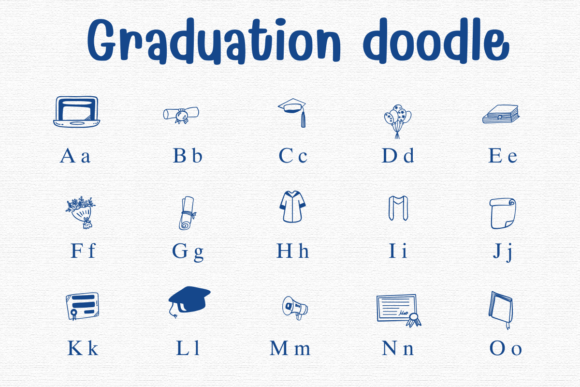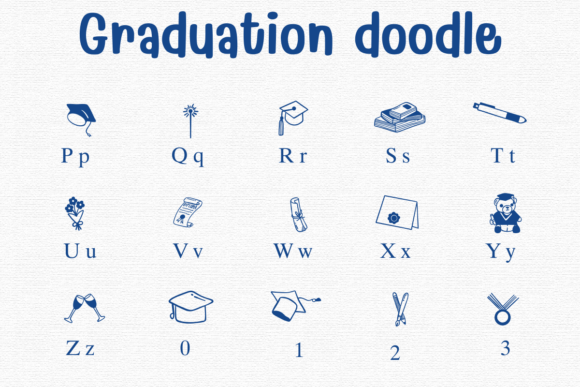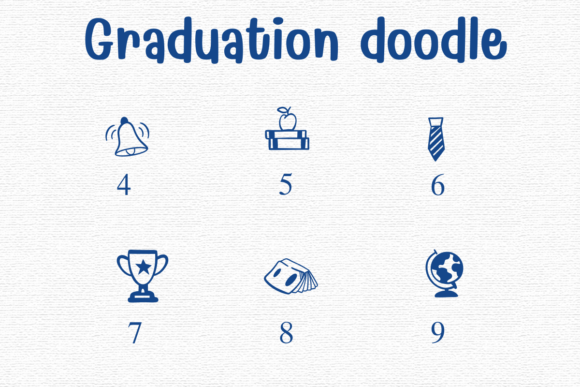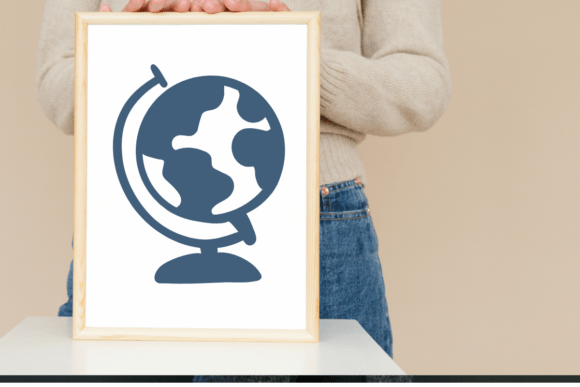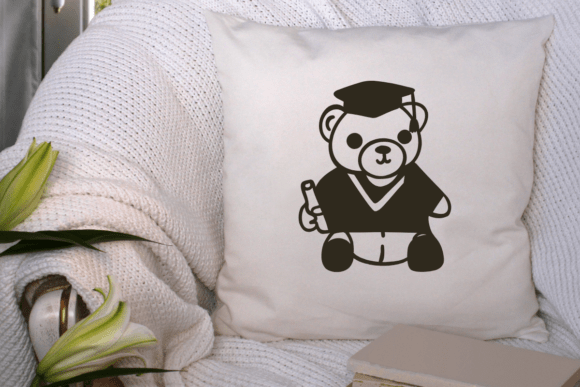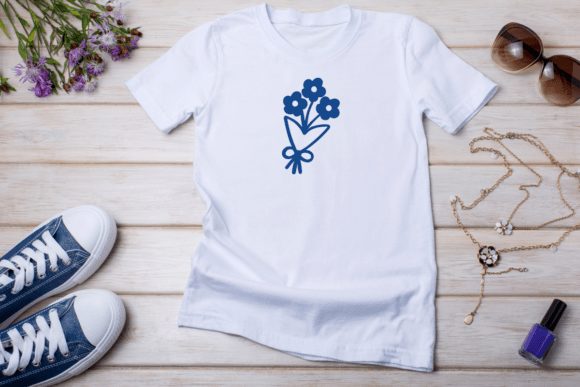
Unlock the Power of Creativity with Graduation Doodle Font
Have you ever found yourself staring at a blank canvas, struggling to bring your ideas to life? You’re not alone. As creatives, we’ve all been there – the blank page, the empty design space, the nagging feeling that our vision just isn’t quite coming together. But what if I told you that there’s a secret to unlocking your full creative potential? It starts with a simple yet powerful tool: the Graduation Doodle Font.
This unique dingbats font boasts a sketched style that’s both natural and visually striking. Its versatility makes it the perfect addition to any design project, from digital art to handmade crafts. Whether you’re a seasoned pro or just starting out, the Graduation Doodle Font is sure to spark your imagination and take your creations to the next level.
Graduation Doodle Font Key Features
- Unique Hand-Drawn Style: The font features a distinctive hand-drawn design with a playful, doodle-like aesthetic.
- Multi-Lingual Support: The font includes support for various languages, making it a versatile choice for international applications.
- Editable: The font is fully editable, allowing designers to customize and manipulate the characters as needed.
Graduation Doodle Font Review
Overall, I found the “Graduation Doodle Font” to be a cute and charming addition to any design project. ✨ Here are some of its strengths:
- Handwritten feel: This font perfectly captures the essence of a handwritten note, making it perfect for graduation-themed projects or any other occasion where a personal touch is needed.
- Customization options: The font offers various customization options, including color, size, and line thickness, allowing designers to easily tailor the font to their project’s needs.
- Easy to use: The font is highly legible and easy to read, even at small font sizes.
- Limited font styles: While the font has various customization options, it only comes in a few pre-designed styles, which might limit its versatility for more complex projects.
- Lack of bold/italic variants: The font does not offer bold or italic variants, which might be a drawback for designers who need to emphasize certain text or use the font for titles.
Overall, I think the “Graduation Doodle Font” is a great choice for simple, personal projects, but it might not be the best fit for more complex or professional designs. With some additional customization options and font styles, this font could be even more effective in the right situations.
Graduation Doodle Font: A Practical Application Guide
The Graduation Doodle Font is ideal for creating custom graduation invitations, certificates, and announcements. It can also be used for creating educational materials, such as worksheets and activity sheets. With its playful and celebratory feel, this font is perfect for any occasion that calls for a fun and creative touch.